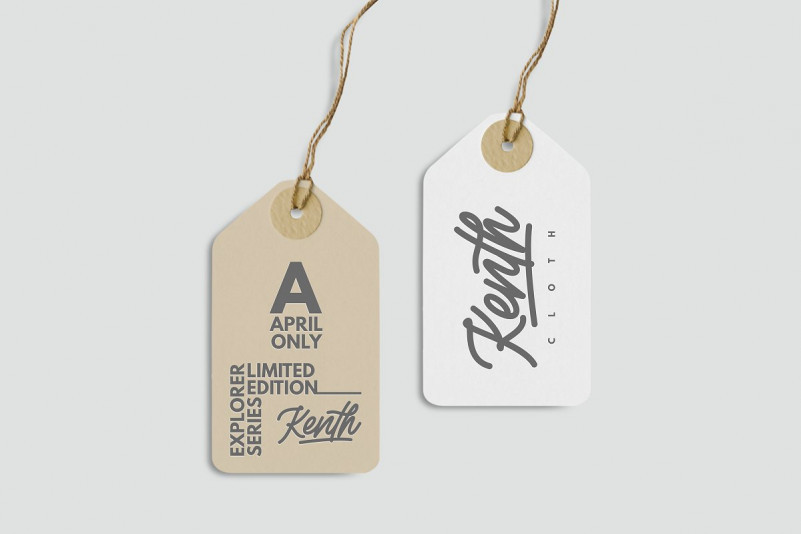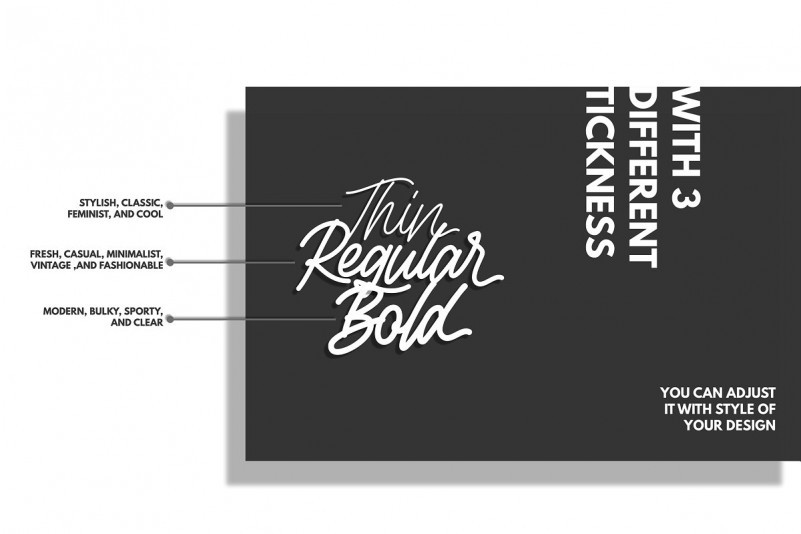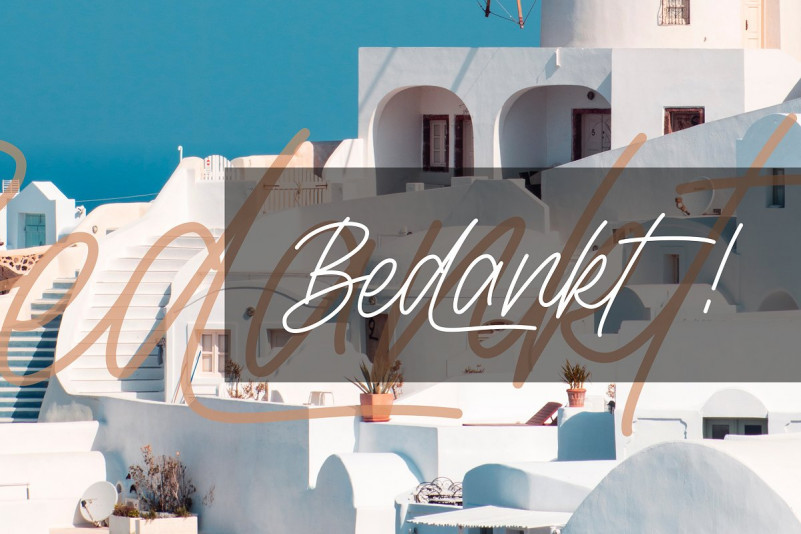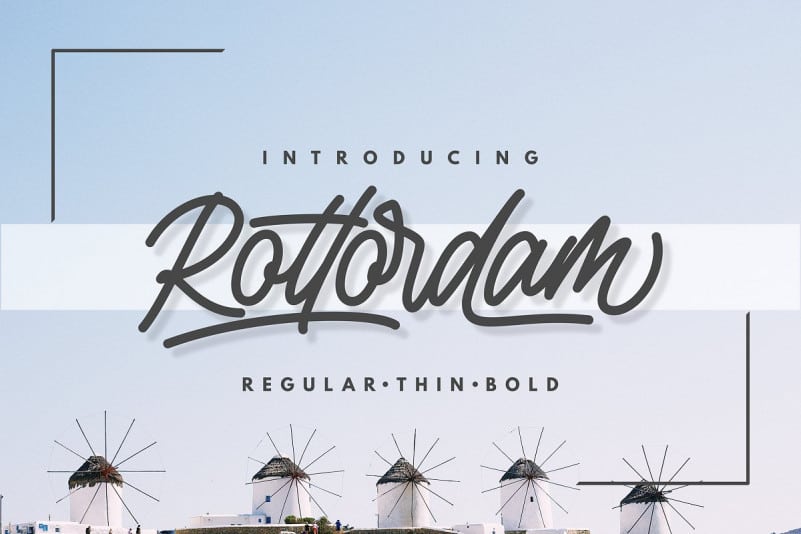
Rottordam Script Font
I am very pleased to introduce a new design of Inspiratype. Introducing Rottordam Font! “Rottordam” is a font display that is made by hand, inspired by classic posters. Comes with uppercase, lowercase, numerals, punctuations and so many variations on each character include OpenType alternates, common ligatures and also additional swash to let you customize your designs. Perfect to use for Logotype, Letterhead, Poster, Apparel Design, Label and etc.